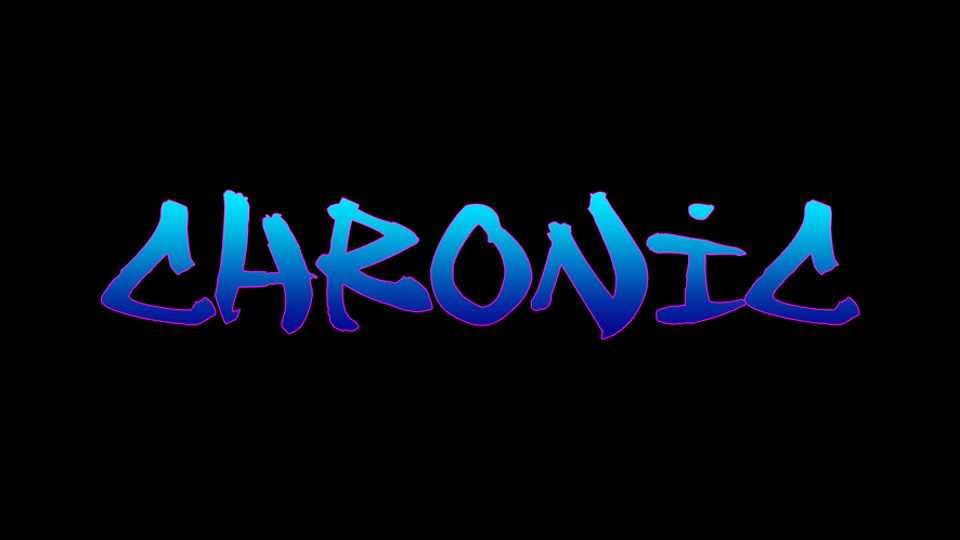
Chronic Font › Fontesk – Download Grátis
Download Chronic font, a hiphop graffiti-inspired decorative handwritten typeface. Chronic font looks awesome for posters, covers, apparel prints and other artworks.
Designer: 11-D productions